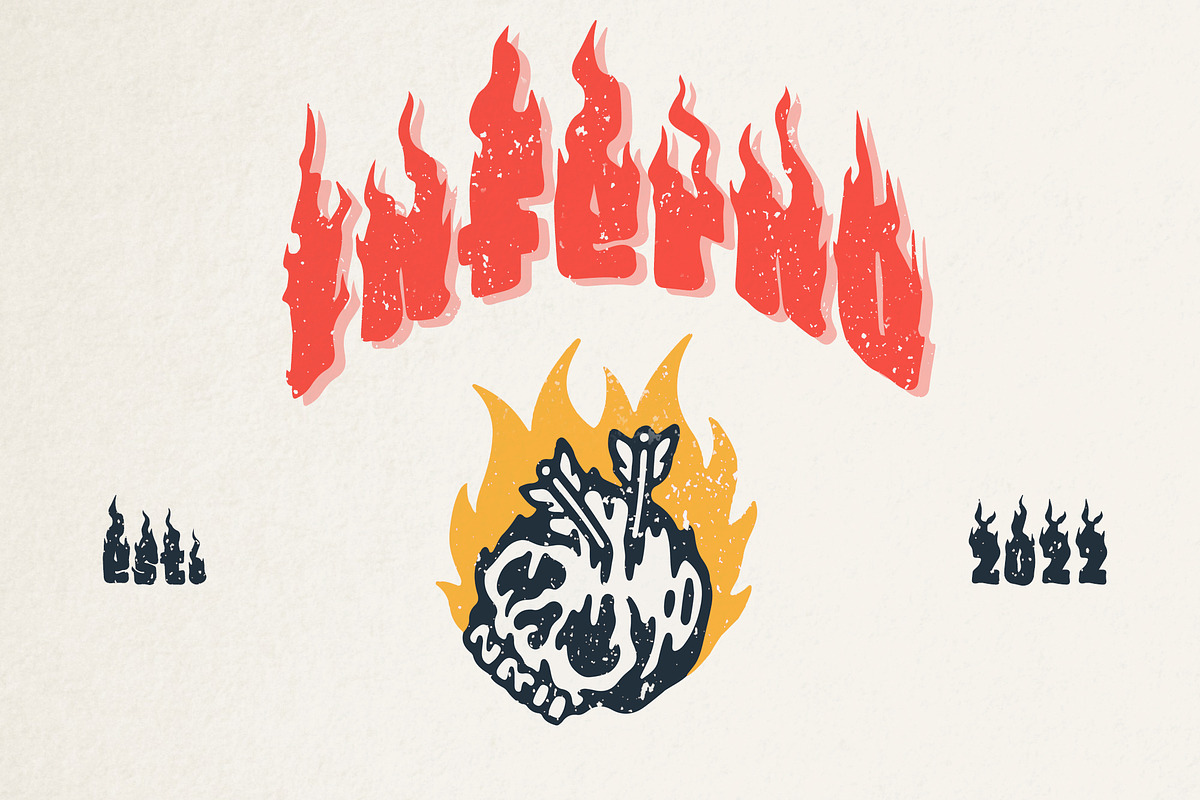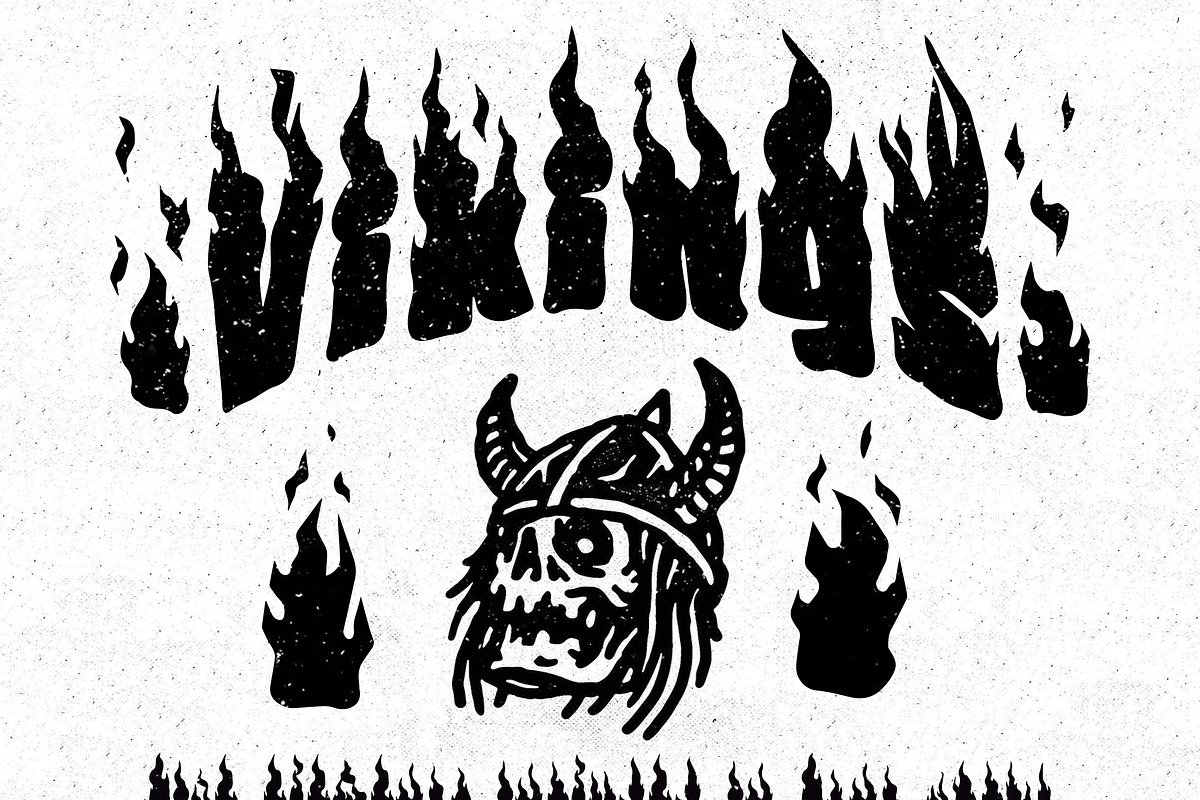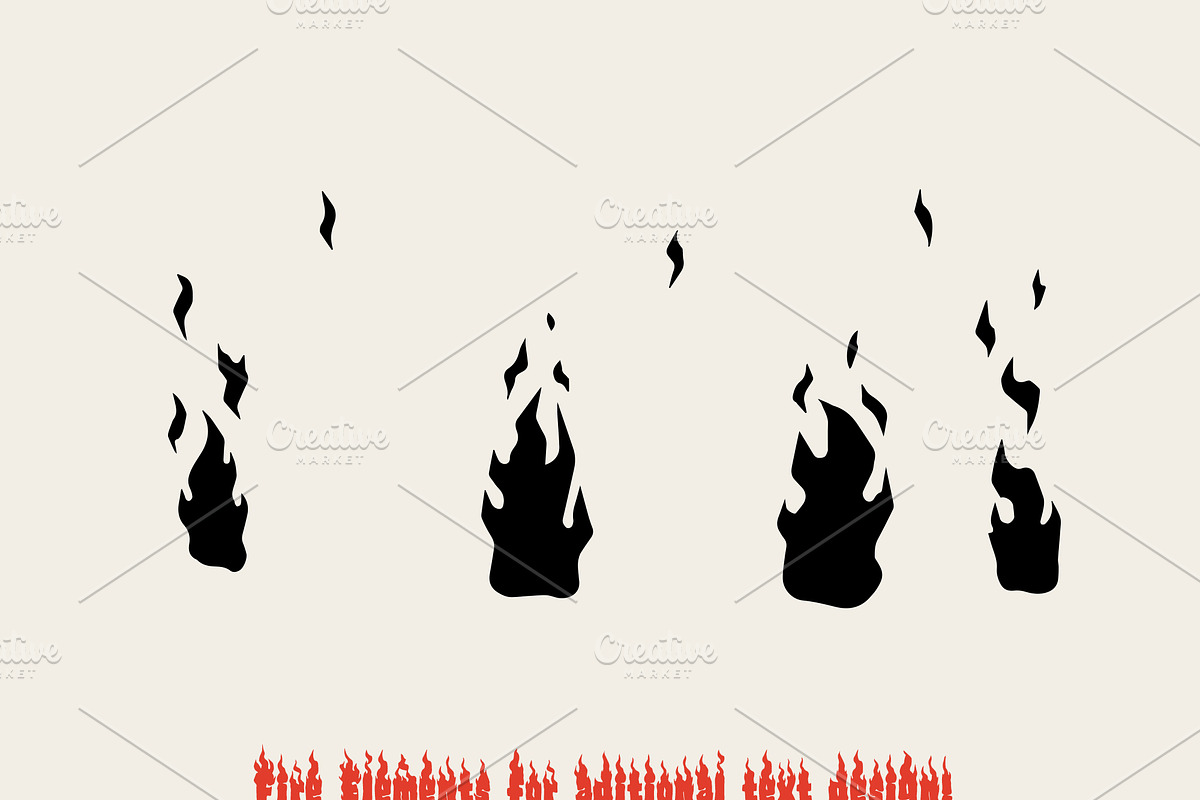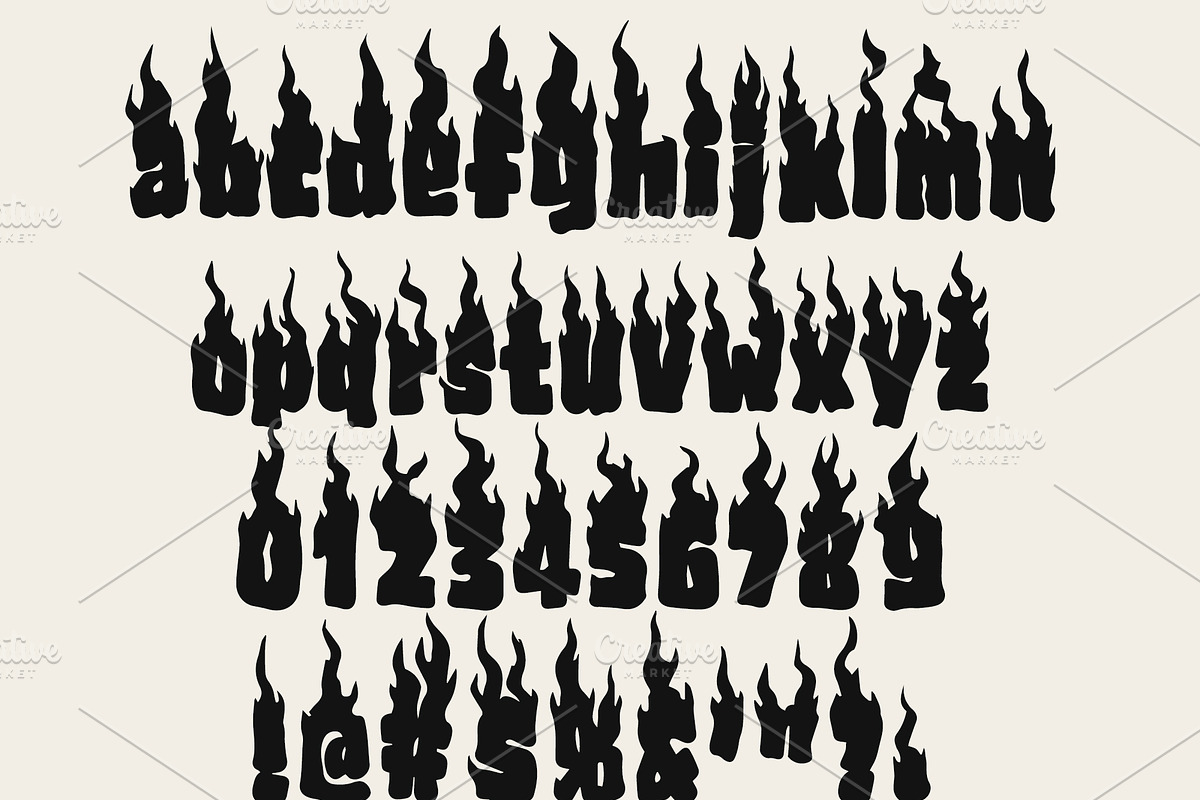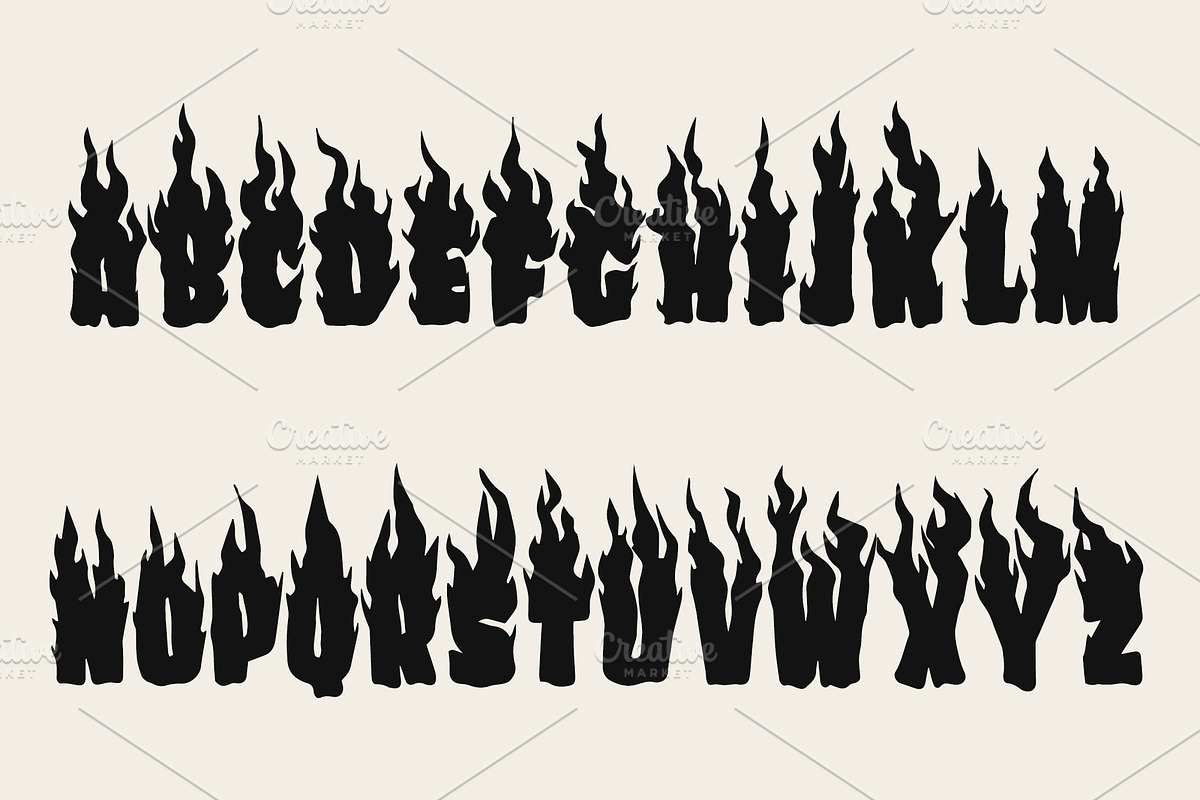
Inferno font pack w/ fire elements
Inferno font pack is designed to be used as a title font for t-shirt or poster designs. Its bold and vibrant design will bring life and attention to any design project.